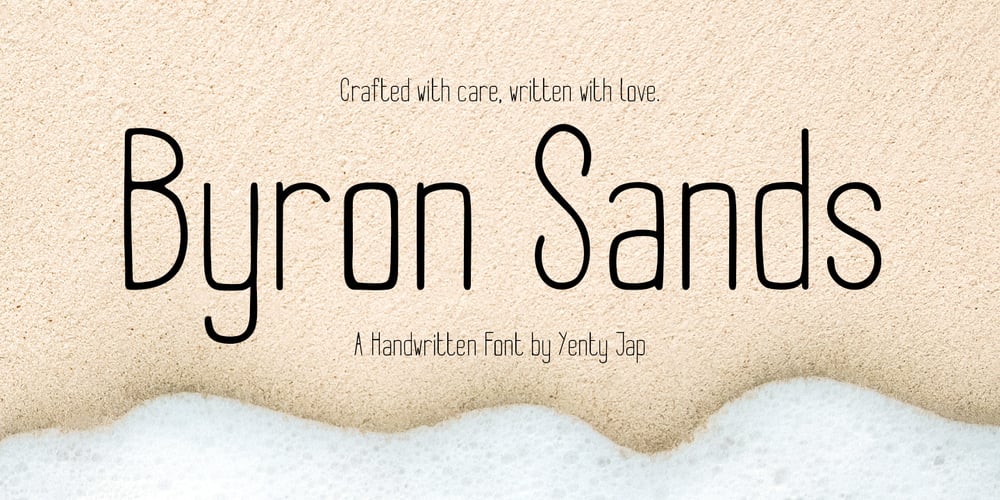
Byron Sands YJC Font Family was designed by Yenty Jap and published by Yenty Jap Co. Byron Sands YJC contains 1 styles and family package options. Introducing Byron Sands, a minimalist and modern handwritten font with a playful touch. This font is perfect for projects that require clean lines and a contemporary aesthetic while maintaining a friendly and approachable feel. Designed with versatility in mind, Byron Sands is your go-to choice for everything from branding to personal projects.What’s Included: A full set of uppercase and lowercase letters Numbers, punctuation, and symbols Perfect For:Byron Sands fits beautifully into projects where simplicity meets creativity. Here’s where this font truly shines: Branding & Logos: Add a fresh and modern look to your business identity. Product Packaging: Perfect for minimal designs with a quirky, human touch. Web Design: Give your headers and subheadings a stylish, clean look. Stationery & Invitations: Ideal for wedding invites, event programs, and everyday cards. Children’s Products: Bring a playful charm to lunchboxes, toys, and book covers. Editorial Design: Use it for magazine spreads, catalogs, or digital publications. Why You’ll Love It:Byron Sands offers a delicate balance of modernity and warmth. Its smooth curves and structured design make it incredibly versatile—whether you’re crafting a professional logo, designing eye-catching merchandise, or creating social media graphics, this font ensures your project stands out.